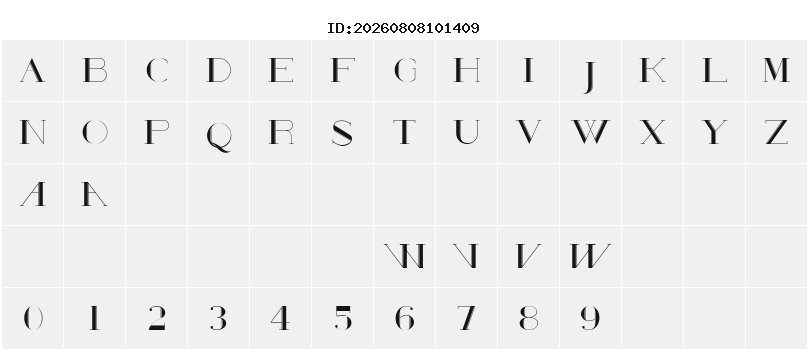
Poste Preview
• Font Name: Poste
• Font Style: Wired
• Full Font Name: Poste Wired
About Poste.ttf
Poste.ttf is a modern, elegant sans-serif font designed for ultimate readability and visual harmony. Perfect for branding, headlines, web design, and print materials.